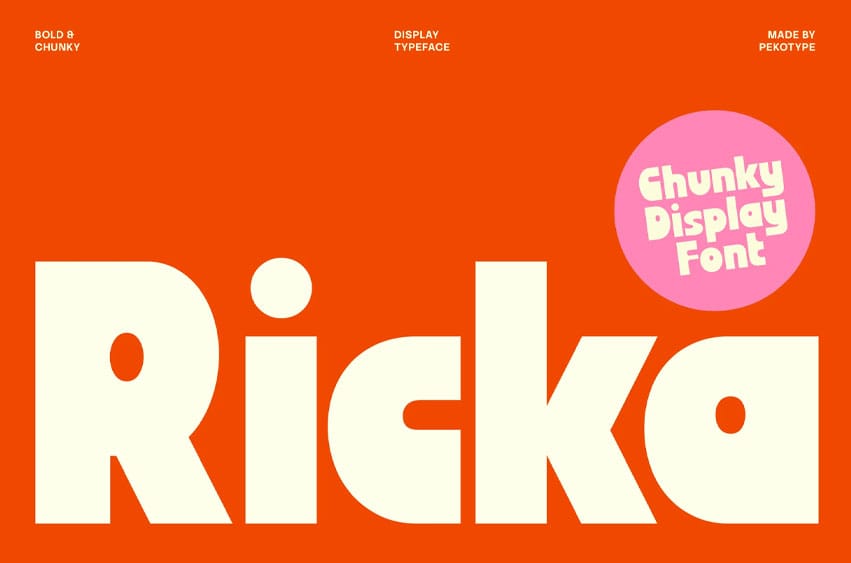
Ricka Font Bold Sans Display Branding Font Ricka is a bold sans display font with chunky shapes, rounded corners, and a playful personality. Its strong yet friendly look makes it perfect for creating eye-catching headlines, logos, and brand designs with a fun modern-retro feel.
Perfect for branding, logo design, cafe and bakery projects, food packaging, menus, posters, social media, merchandise, labels, advertising, and lifestyle designs. Ricka also works great for playful campaigns, kids-friendly projects, and any design that needs bold lettering with a warm and cheerful vibe.